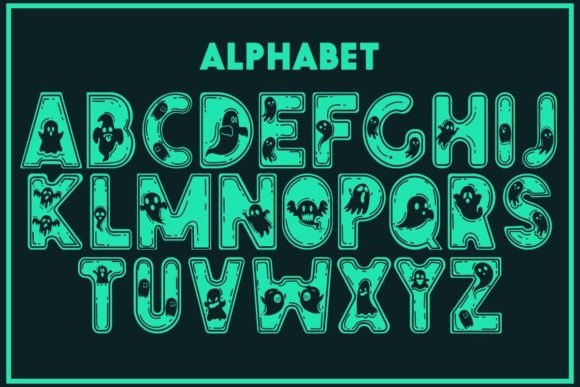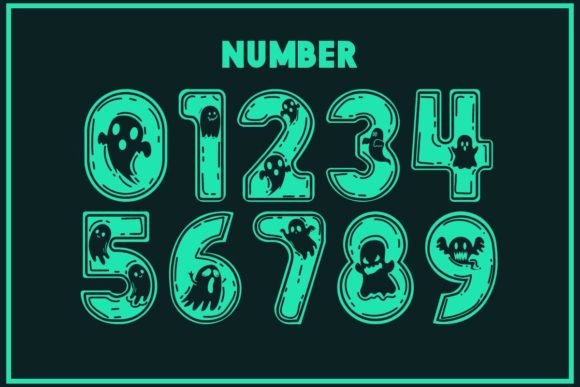
Cute Ghost Font: The Perfect Addition to Your Halloween Projects
Are you looking for a font that will add a touch of spooky whimsy to your Halloween projects? Look no further than the Cute Ghost font! This fun and decorative font is sure to make an impact on all your Halloween designs, from party invitations to craft projects.
What is Cute Ghost Font?
Cute Ghost is a digital font that is designed to capture the playful and mysterious spirit of ghosts and the Halloween season. The font features cute and quirky ghost-shaped letters that are sure to delight designers and crafters of all ages. With its whimsical and spooky design, Cute Ghost font is the perfect addition to any Halloween project.
Key Features of Cute Ghost Font
- Fun and Spooky Design: The Cute Ghost font features ghost-shaped letters that are sure to add a touch of spooky whimsy to your designs.
- Whimsical and Mysterious: The font’s quirky design makes it perfect for Halloween projects, from party invitations to craft projects.
- Versatile: The font can be used in a variety of projects, from digital designs to print projects.
- Halloween Party Invitations: Use the Cute Ghost font to create spooky and fun party invitations that will set the tone for your Halloween party.
- Craft Projects: Add a touch of spooky whimsy to your craft projects, such as ghost-themed decorations or Halloween cards.
- Digital Designs: Use the Cute Ghost font in your digital designs, such as social media graphics or blog posts.
Why Choose Cute Ghost Font?
There are many fonts to choose from, but Cute Ghost font stands out for its unique and playful design. Here are a few reasons why you should choose Cute Ghost font for your Halloween projects:
- Unique Design: The Cute Ghost font features a unique and playful design that is sure to make your designs stand out.
- Versatile: The font can be used in a variety of projects, from digital designs to print projects.
Tips for Using Cute Ghost Font
Here are a few tips for using the Cute Ghost font in your designs:
- Use it Sparingly: While the Cute Ghost font is fun and playful, it can be overwhelming if used too much. Use it sparingly to add a touch of spooky whimsy to your designs.
- Pair it with Other Fonts: Pair the Cute Ghost font with other fonts to create a unique and interesting design.
| Font Name | Cute Ghost Font |
| Author | Doodle Alphabet |
The Cute Ghost font is a fun and spooky decorative font that is perfect for Halloween projects. With its whimsical and mysterious design, it’s sure to make an impact on all your designs. Whether you’re a designer or crafter, the Cute Ghost font is a great addition to your font collection. So why not give it a try and see how it can add a touch of spooky whimsy to your designs?